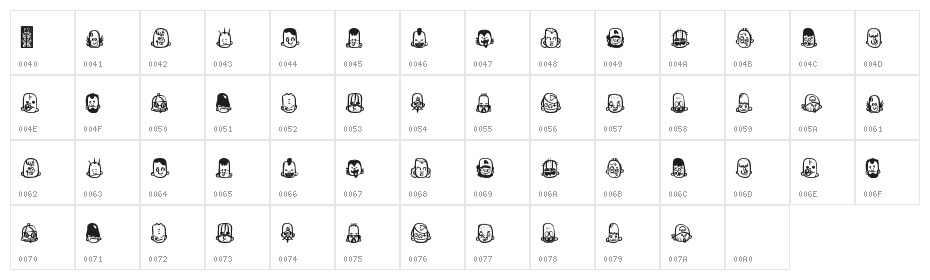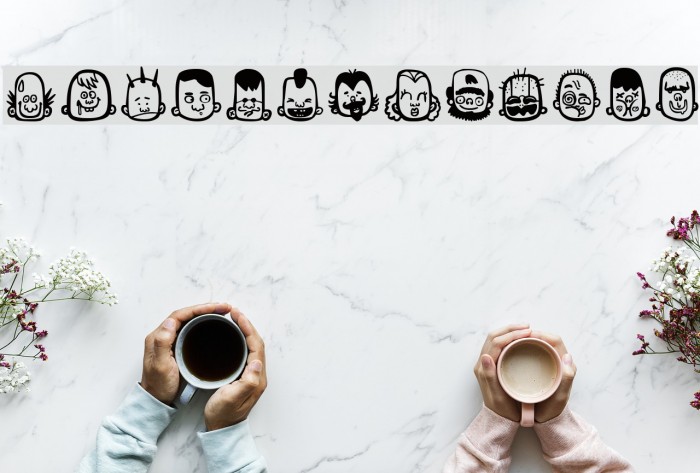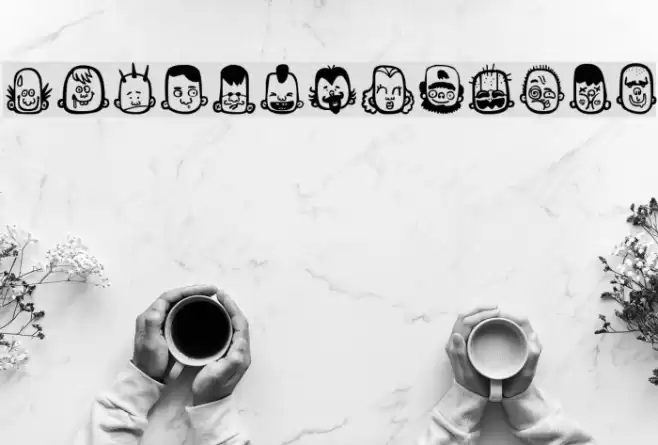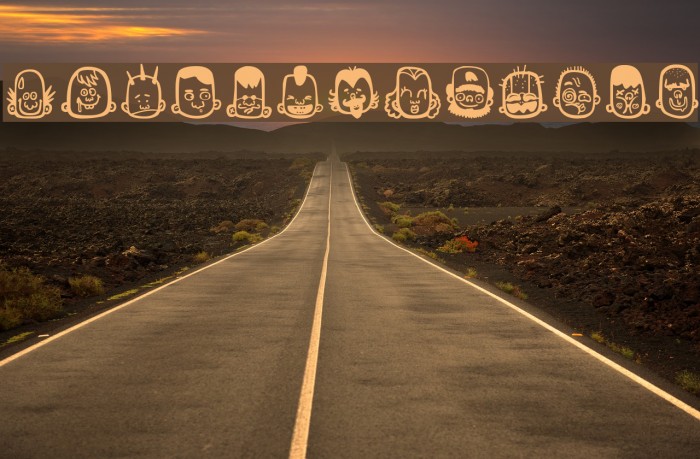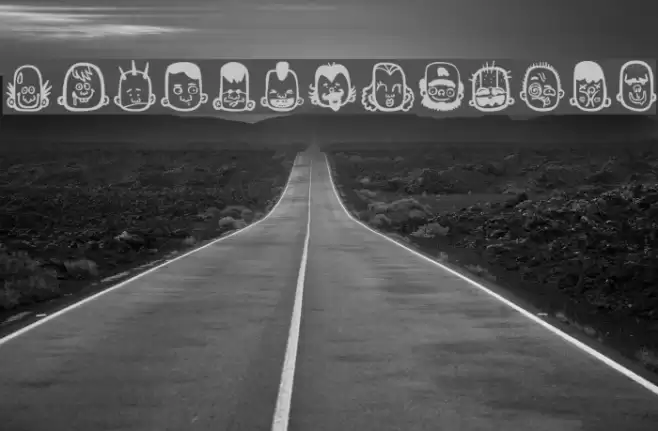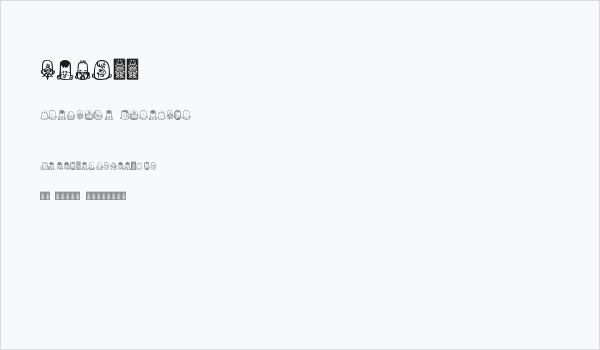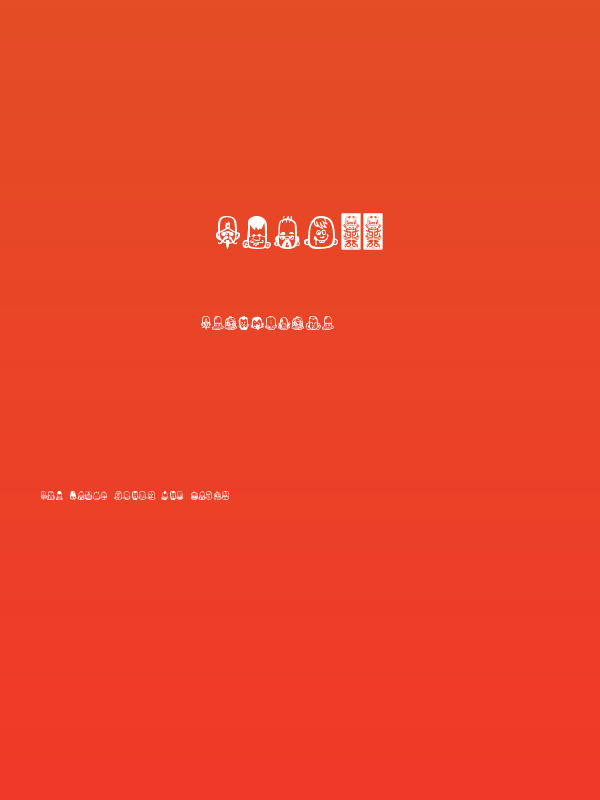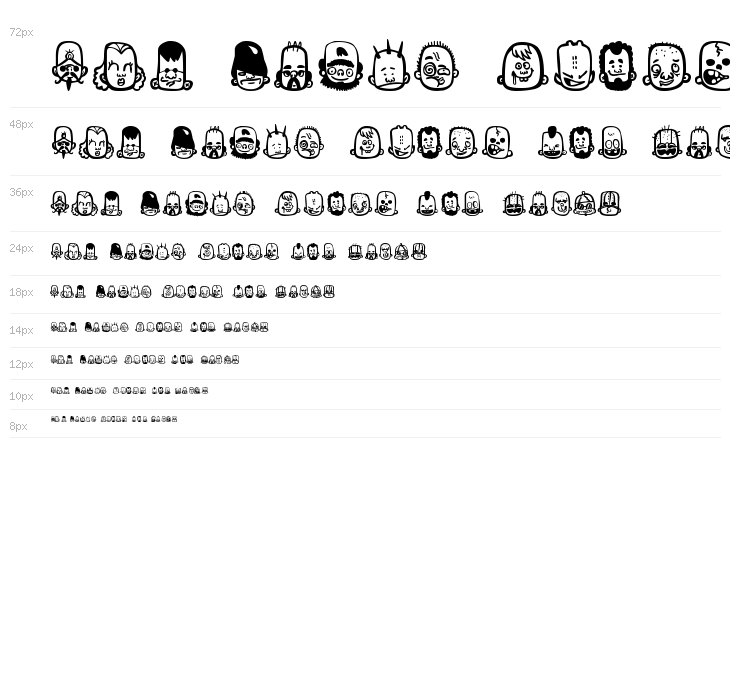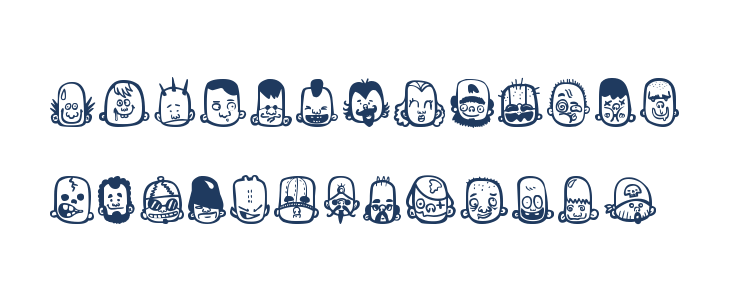
teubé1 Font
teubé1 Description
A playful, decorative font composed entirely of unique cartoon character faces for each letter and symbol, with bold outlines and expressive features. Numbers and special characters are represented by intricate totem-like designs, maintaining a consistent visual theme.
| Overall Style | Decorative, Playful, Cartoonish |
| Use Case | Headlines, Posters, Logos, Children’s materials |
| Proposed Projects | Children’s books, comic titles, posters, party invitations, branding for playful products. |